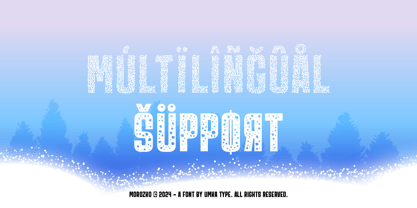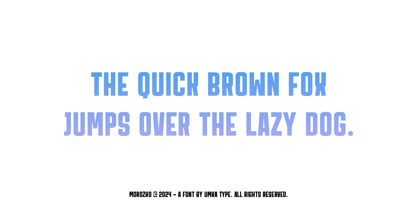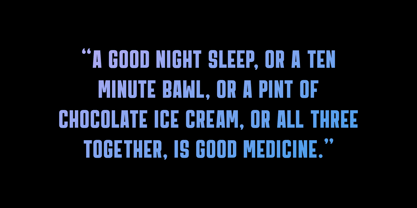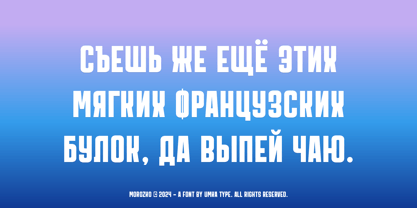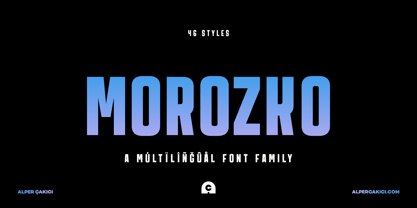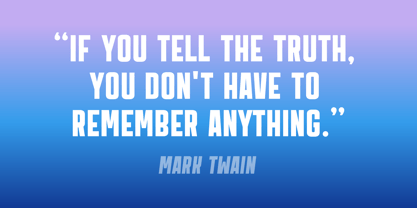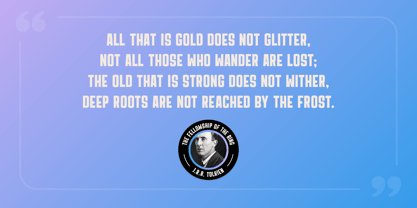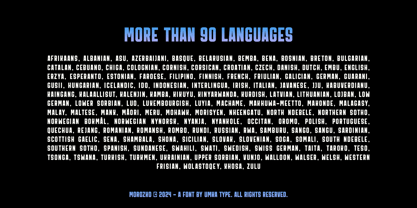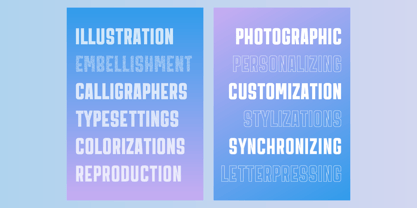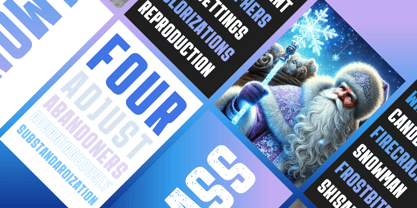
Morozko
von AlperCakici
Die Schriftfamilie Morozko wurde von Alper Çakıcı entworfen und von AlperCakici veröffentlicht. Morozko enthält 46 Stile und Familienpaketoptionen. Mehr über diese Familie
Morozko - Bold Display Font
• Morozko is a carefully crafted font.
• Multilingual: It has Extended Latin and Extended Cyrillicletters.
• Morozko created for games, web design, branding and social media works.
Designer: Alper Çakıcı
Foundry: AlperCakici